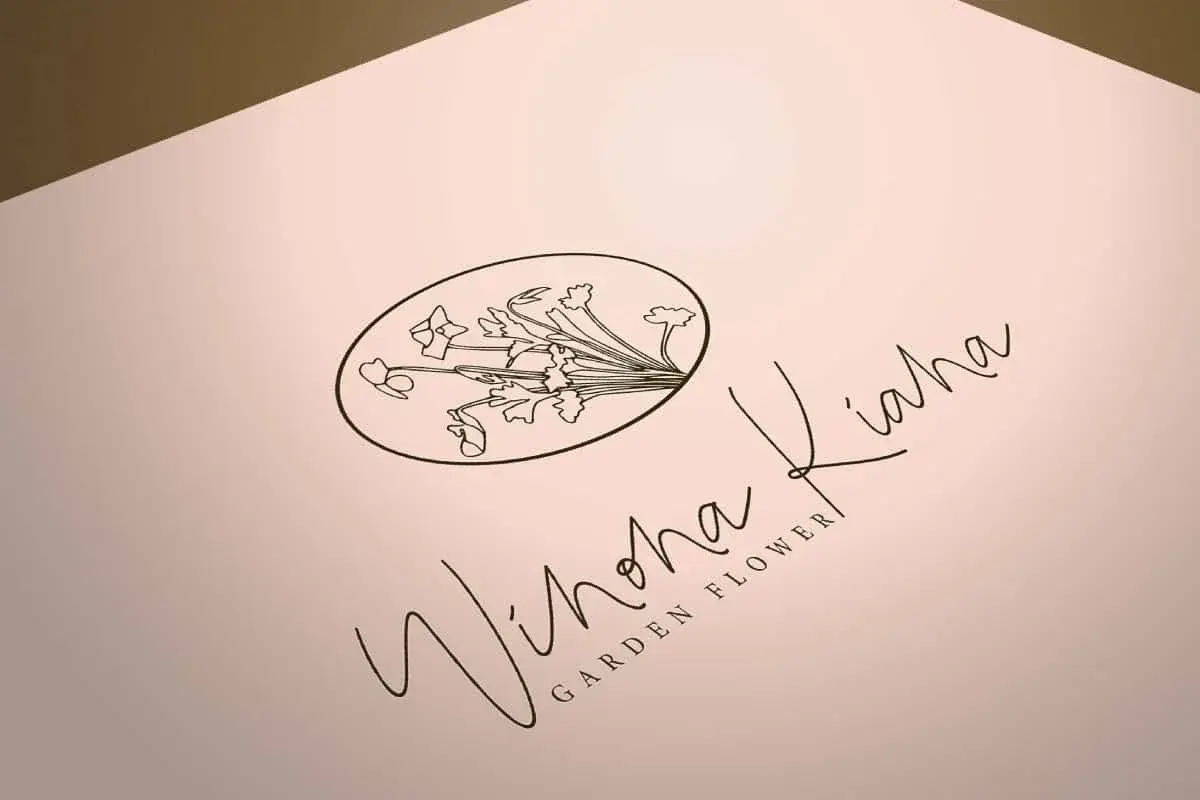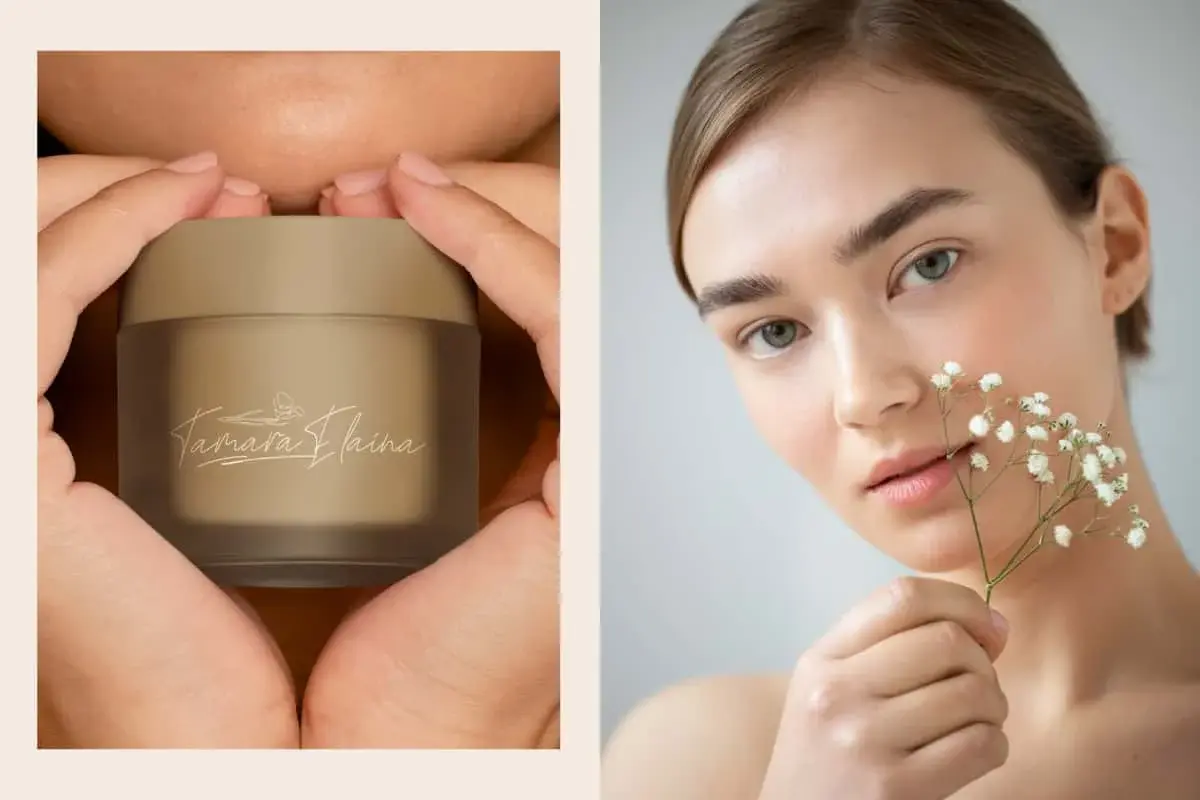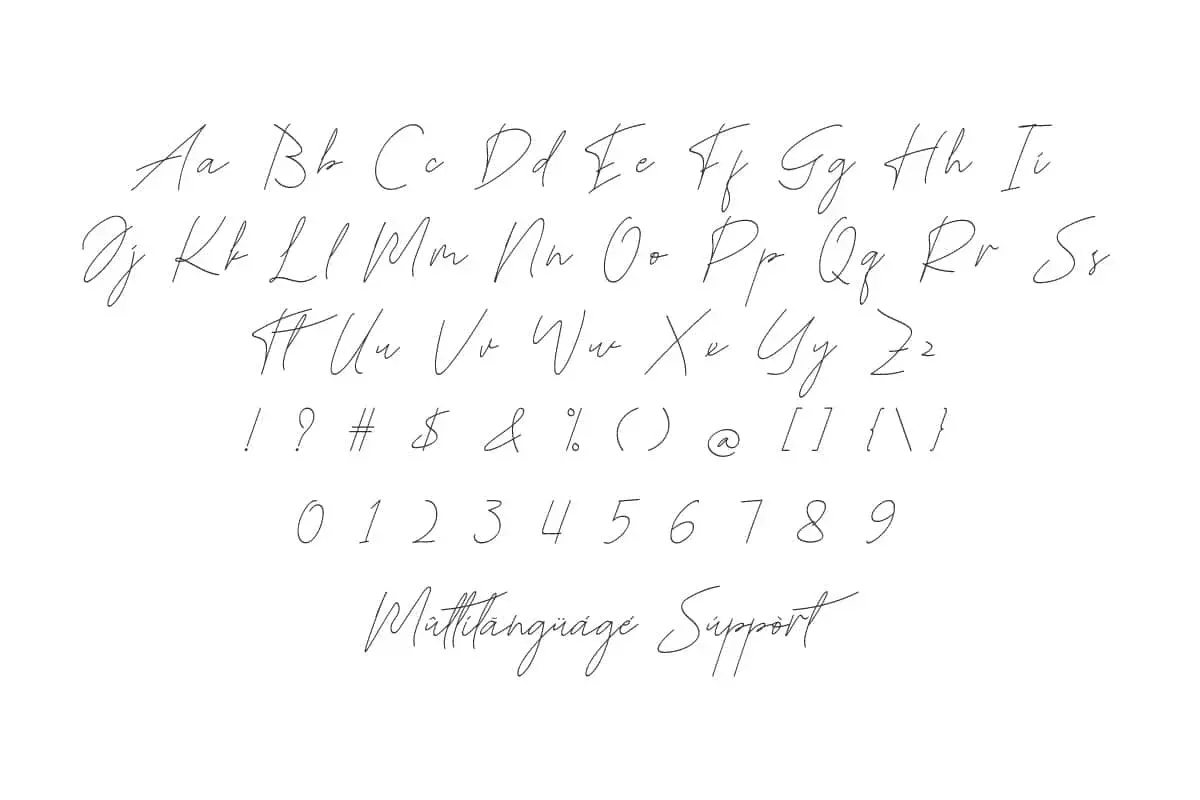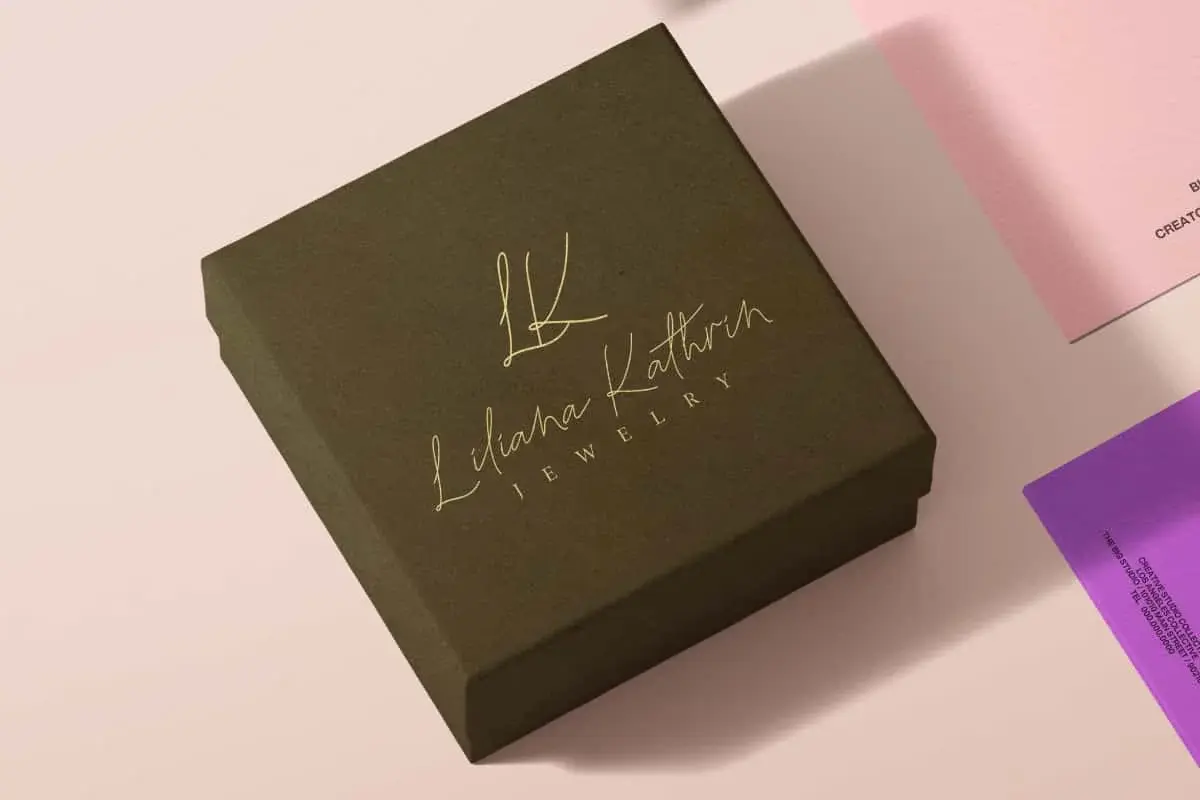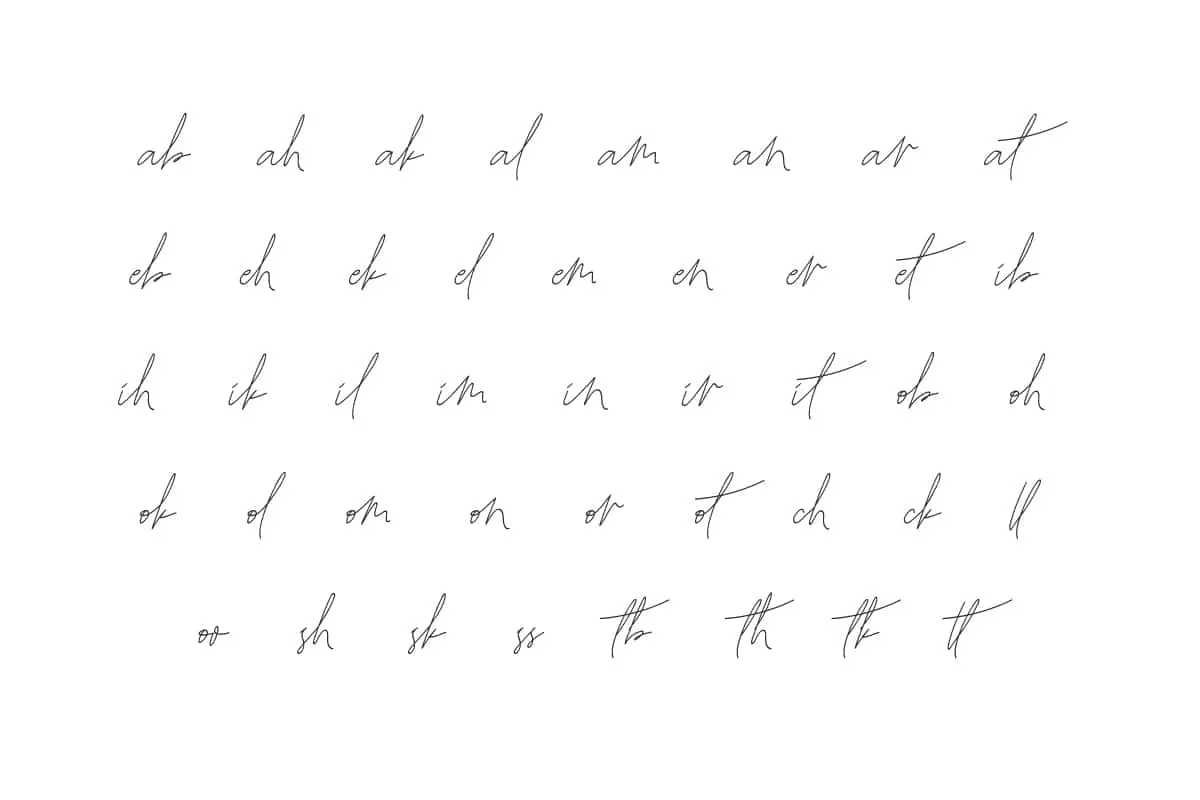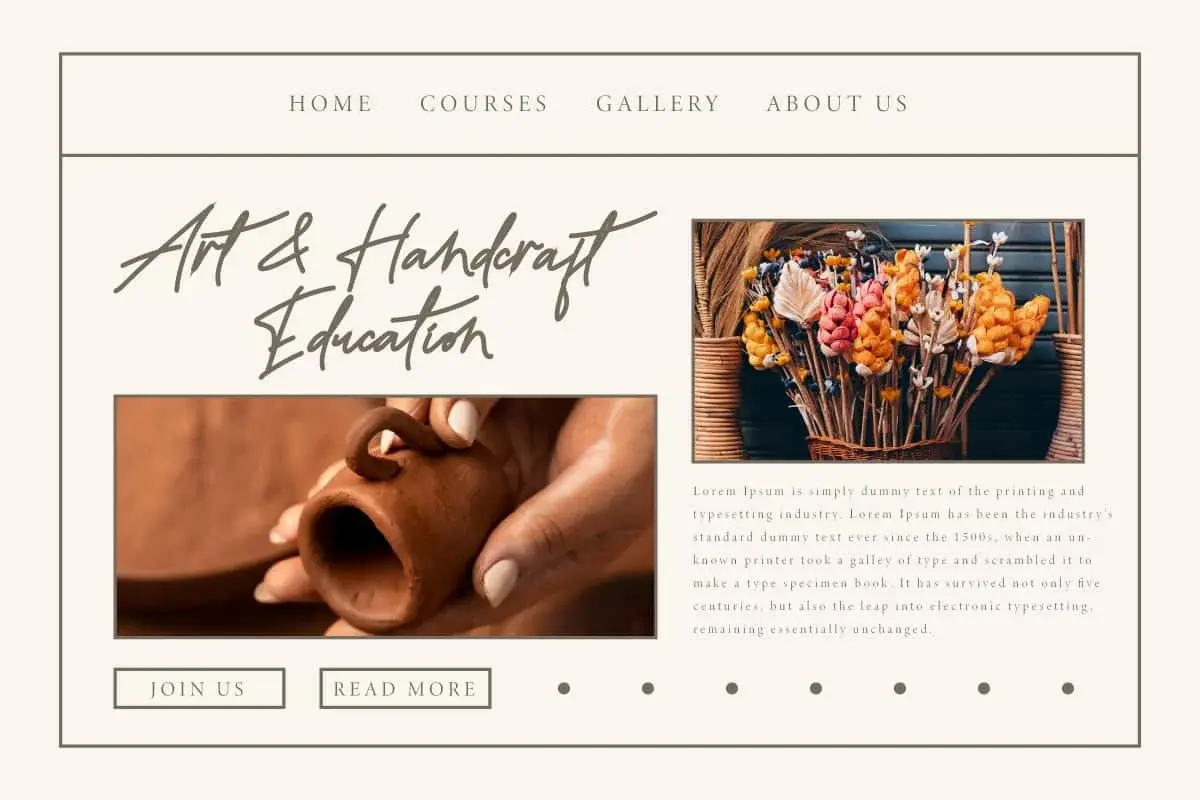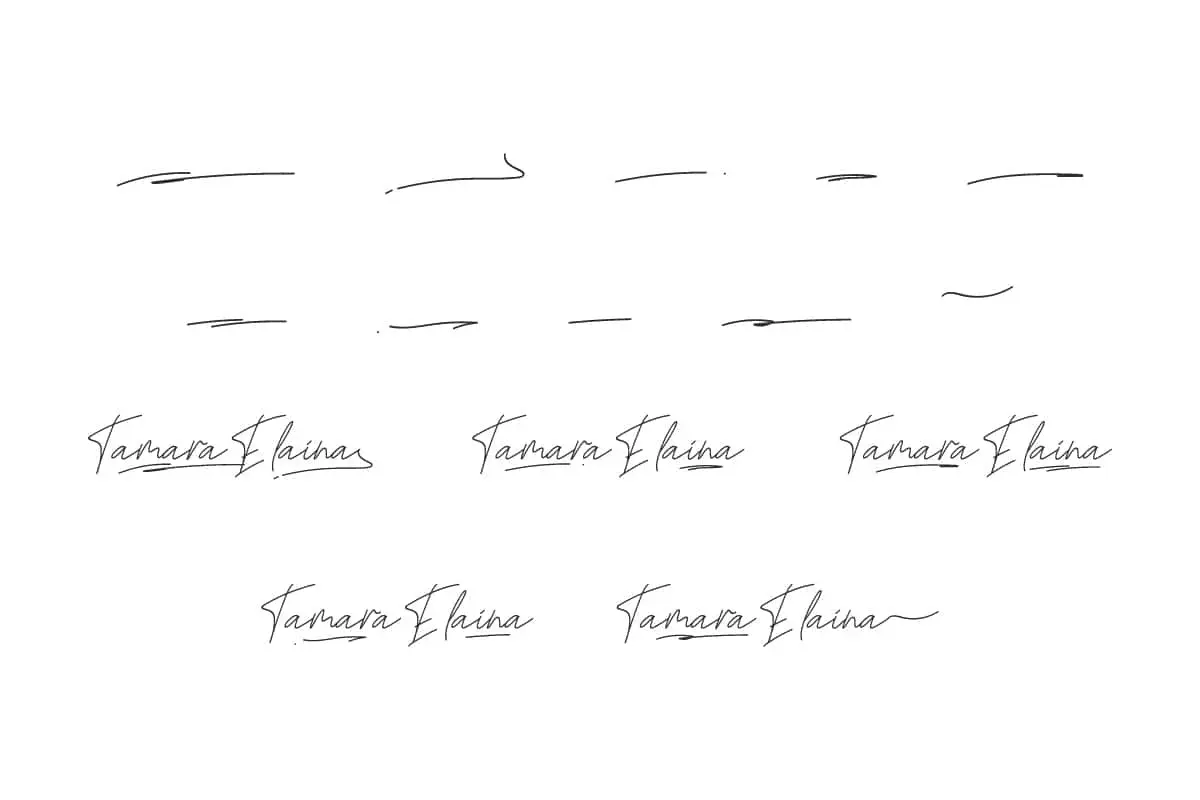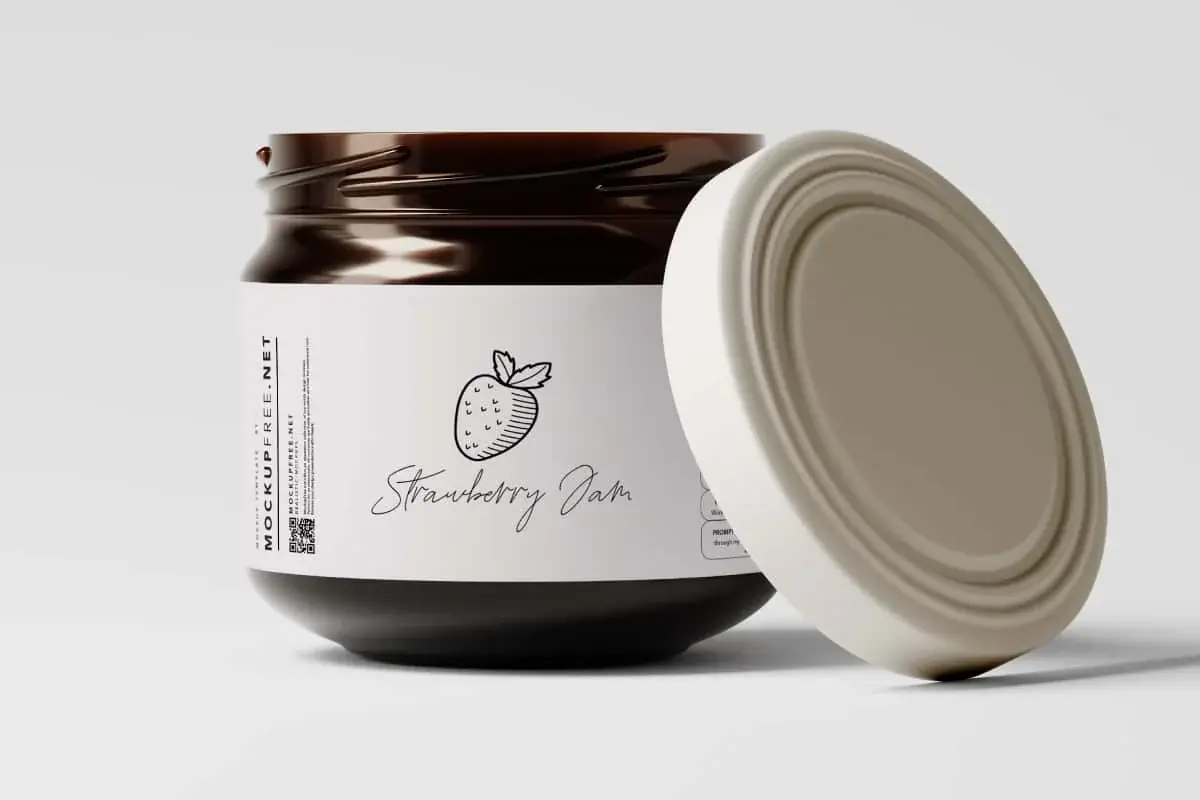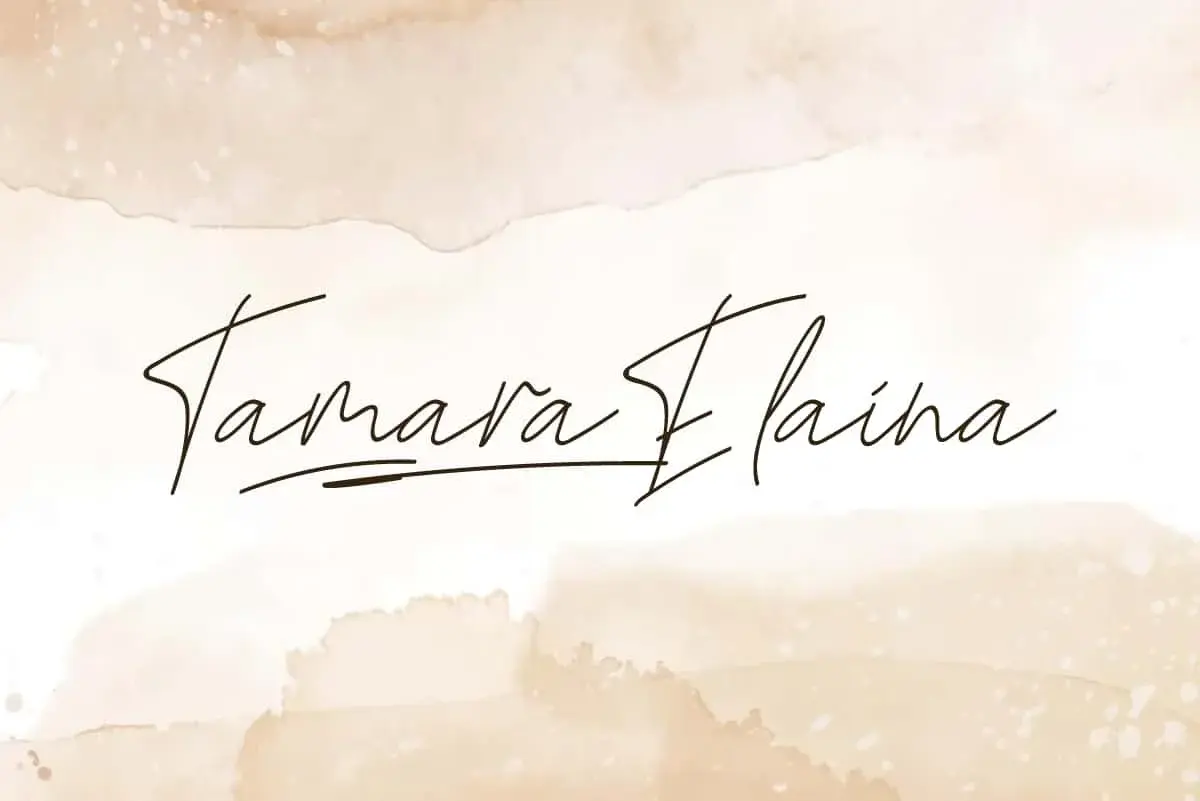
Tamara Elaina Font is a light monoline script font that is so chic and clean, with ligatures and swashes that combine perfectly to create a stunning text combination.
Tamara Elaina Font is an elegant monoline font with a signature script handwriting style designed in a modern way to create the most beautiful design projects. Perfect for banners, blogs, brand logo, brochure, covers, embossed design, greeting card, headers, invitation, label, mockup, packaging, sign board, stationery, sticker, template, title, watermark, website, etc.
Tamara Elaina Font includes a complete set of Basic Uppercase and Lowercase Characters, Numbers, Punctuation, Symbols, Ligature and Swash. It is a testament to the timeless elegance of human touch and artistic expression. Combine the letters to create the look you desire. Suitable for accessories and gifts, beauty product, florist, food factories, gardener, graphic design, handicraft, jewelry, spa salon, and more.